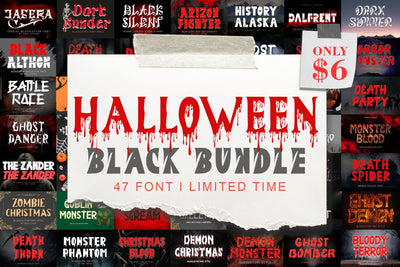
Halloween Black Bundle
Complete font for all your work.
This bundle contains 47 fonts with all popular season themes and professional fonts:
- Arizon Fighter
- Black Silent
- Battle Hunter
- Battle Race
- Black Althon
- Black Combat
- Black Mortal
- Black Romero
- Blood Hunter
- Bloody Terror
- Christmas Blood
- Dalfrent
- Dark Master
- Dark Monstero
- Dark Summer
- Dark Sunder
- Death Demon
- Death Party
- Death Prison
- Death Spider
- Death Thorn
- Death Zombie
- Demon Christmas
- Demon Monster
- Devil Scream
- Devil Story
- Ghost Battle
- Ghost Blaze
- Ghost Bomber
- Ghost Danger
- Ghost Demon
- Ghost Festival
- Ghost Skeleton
- Ghost Smoke
- Goblin Monster
- Greztro
- History Alaska
- Horror Monster
- Jasera
- Monster Blood
- Monster Phantom
- Halloween Party
- Scary Light
- Spooky Bat
- The Zander
- Witch Pumpkin
- Zombie Christmas
This bundle is perfect for a variety of projects such as christmas, halloween, fall, autumn, back to school, weddings, designs, branding, logos, invitations, stationery, social media posts, advertisements, product packaging, product designs, labels, photography, valentine, easter, mother day, father day, watermarks, special events or whatever.